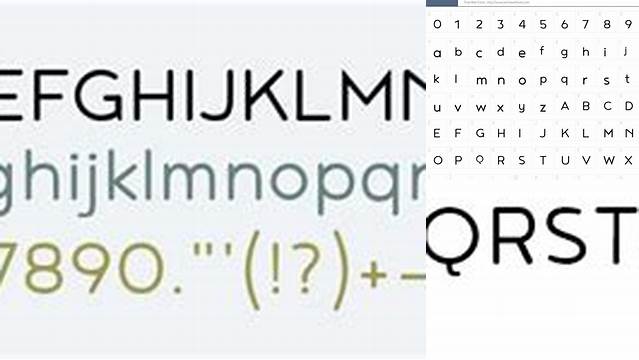
What is Noyh R Semilight Font?
Before we dive into the download process, let's understand what makes Noyh R Semilight a font worth considering. Noyh R Semilight is a modern sans-serif typeface known for its clean lines and balanced proportions. Its semi-light weight gives it an elegant and readable quality, making it suitable for a wide range of design applications. This font is part of the larger Noyh typeface family, which includes various weights and styles, offering versatility for different design needs. The semilight variant strikes a perfect balance between being too thin and too bold, providing a comfortable reading experience while maintaining a sophisticated appearance. Its design is characterized by its subtle curves and precise letterforms, making it a favorite among designers who value clarity and modernity. The font’s neutral and contemporary aesthetic makes it ideal for branding, web design, editorial layouts, and much more. Its versatility extends to both print and digital media, ensuring that your projects maintain a consistent and professional look across all platforms. Using Noyh R Semilight can elevate your designs, giving them a polished and refined feel. Whether you're working on a minimalist design or a complex layout, this font can adapt seamlessly to your requirements. Its legibility at various sizes makes it suitable for body text as well as headlines, providing a cohesive typographic solution for your projects.
Key Characteristics of Noyh R Semilight
To truly appreciate Noyh R Semilight, it's essential to understand its key characteristics. The font’s clean and minimalist design is one of its most defining features, making it incredibly versatile for a variety of projects. Its balanced proportions ensure that each letterform is visually harmonious, contributing to the overall readability and aesthetic appeal. The semi-light weight adds an element of sophistication, making it an excellent choice for designs that require a touch of elegance. The subtle curves and precise lines give Noyh R Semilight a contemporary feel, making it suitable for modern branding and web design. Additionally, the font’s legibility is enhanced by its generous spacing and clear letterforms, ensuring that it remains readable even at smaller sizes. This makes it a practical choice for both body text and headlines. Noyh R Semilight’s neutrality is another key characteristic, allowing it to pair well with other fonts and design elements without overpowering them. Its adaptability makes it a go-to choice for designers who need a reliable and stylish typeface. Whether you're working on a website, a brochure, or a logo, Noyh R Semilight can bring a sense of polish and professionalism to your work. Understanding these key characteristics will help you make the most of this font in your design projects.
How to Use Noyh R Semilight Effectively
Once you've successfully downloaded Noyh R Semilight (or a suitable alternative), the next step is to use it effectively in your design projects. This font's clean and modern aesthetic makes it versatile for a variety of applications, but understanding how to leverage its strengths is crucial for achieving the best results. One of the primary considerations is the font's weight. Being a semilight font, it's ideal for projects that require a touch of elegance and sophistication. Use it in headlines and subheadings to create a visually appealing hierarchy, or employ it in body text for a clean and readable experience. Its balanced proportions ensure that it remains legible even at smaller sizes, making it a practical choice for both print and digital media. When pairing Noyh R Semilight with other fonts, consider using a complementary typeface that provides contrast without clashing. A bolder sans-serif or a classic serif font can work well as a counterpoint, adding visual interest and balance to your design. Experiment with different font combinations to find the perfect harmony for your project. Additionally, pay attention to the spacing and kerning to ensure optimal readability. Adjusting these elements can significantly impact the overall look and feel of your typography. Noyh R Semilight's neutrality allows it to adapt well to various color schemes and design styles. Whether you're working on a minimalist design or a more complex layout, this font can integrate seamlessly into your project. By understanding its characteristics and applying effective typographic principles, you can maximize the impact of Noyh R Semilight and create visually stunning designs.
Alternatives to Noyh R Semilight
Conclusion: Enhancing Your Designs with the Right Font
In conclusion, choosing the right font is crucial for enhancing the overall impact of your designs. While Noyh R Semilight is an excellent typeface known for its clean and modern aesthetic, it's essential to explore all your options and ensure you're using fonts legally and ethically. This comprehensive guide has provided you with the knowledge you need to understand Noyh R Semilight, its key characteristics, and where to potentially find it for free. We've also emphasized the importance of using safe and legitimate font download sources to protect your computer and respect font licensing agreements. Understanding how to use Noyh R Semilight (or any font) effectively involves considering its weight, pairing it with complementary typefaces, and paying attention to spacing and kerning. Best practices for font usage, such as limiting the number of fonts and ensuring readability, will help you create visually appealing and functional designs. Font licensing is a critical aspect to grasp, and we've outlined the different types of licenses to help you navigate the complexities. If Noyh R Semilight isn't readily available or doesn't fit your licensing needs, we've explored several alternatives, including free and open-source options available on Google Fonts and other resources. By carefully considering your design requirements, budget, and legal obligations, you can make informed font choices that elevate your projects. Remember, typography is a powerful tool, and the right font can significantly enhance your message and visual communication. Whether you opt for Noyh R Semilight or a suitable alternative, the key is to choose a typeface that aligns with your design goals and allows you to create compelling and professional work.